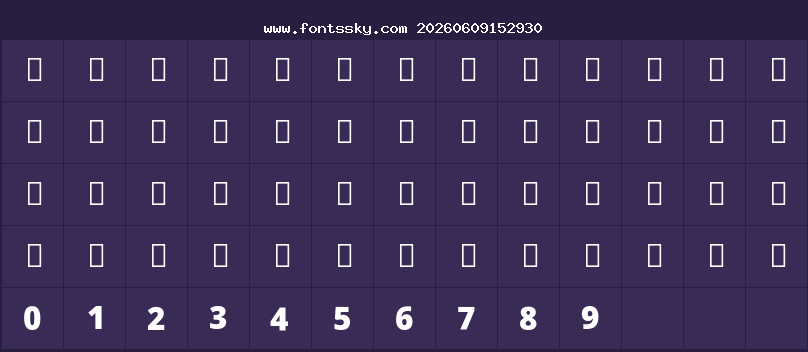
Noto Sans Gujarati UI Black Preview
• Font Name: Noto Sans Gujarati UI Black
• Full Font Name: Noto Sans Gujarati UI Black
• PostScript Name: NotoSansGujaratiUI-Black
• Designer: Jelle Bosma - Monotype Design Team, Universal Thirst
• Manufacturer: Monotype Imaging Inc.
• Description: Designed by Monotype design team.
About Noto Sans Gujarati UI Black.ttf
Noto Sans Gujarati UI Black.ttf is a modern, elegant sans-serif font designed for ultimate readability and visual harmony. Perfect for branding, headlines, web design, and print materials.